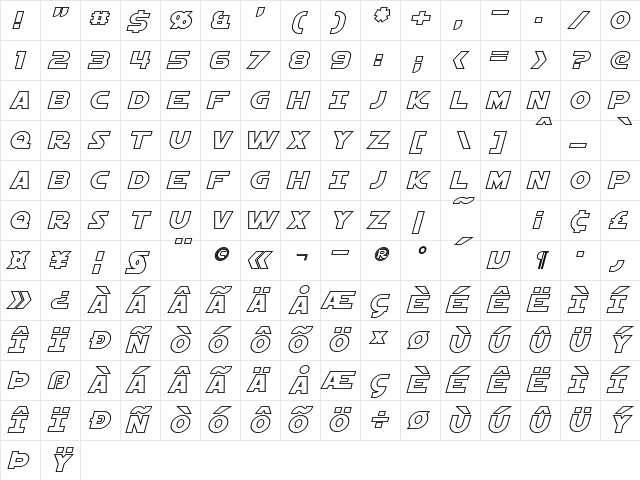
Starkiller Outline Italic
| Designer | Neale Davidson |
Design Context for Starkiller Outline Typeface
Starkiller Outline is built around its visual character rather than neutral utility — its distinctive forms are designed to make an impression at display sizes. Its italic angle brings a sense of urgency and motion to the letterforms.
Font Pairing: Pair with a clean neutral sans-serif for body copy to let Starkiller Outline's character lead without overwhelming the composition.
Pro Tip: Treat Starkiller Outline as the centrepiece of your typographic hierarchy. One strong heading set in a decorative face can carry an entire layout.